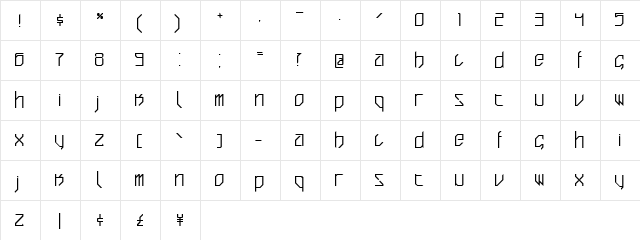
brutl Regular
Design Context for brutl Typeface
brutl is a composed and adaptable typeface that performs quietly and consistently across a wide range of design contexts.